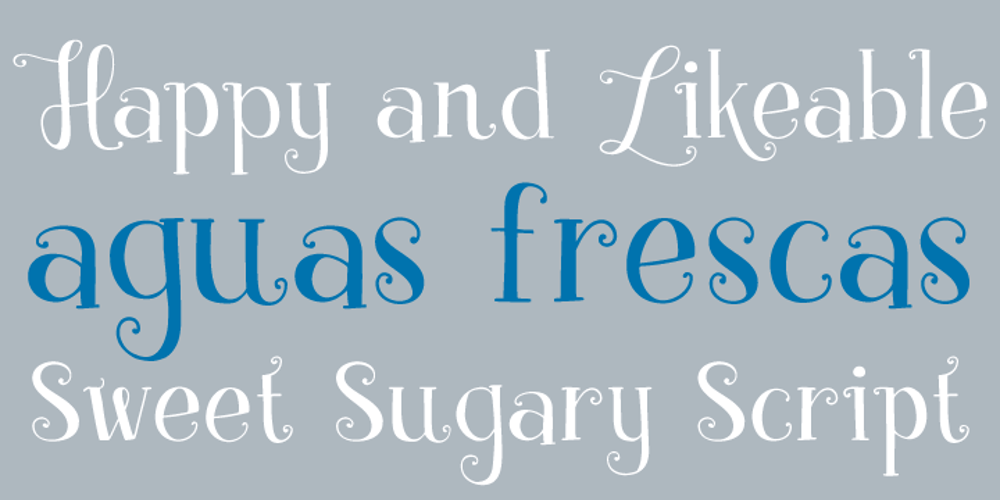
Aguas Frescas Font Family was designed by Chank Diesel, Carla Zetina-Yglesias and published by Chank. Aguas Frescas contains 2 styles and family package options. The Aguas Frescas font family is an outline, hand-drawn display typestyle that reflects script handwriting with a lively, whimsical twist. It is a flowery little font that dances across headlines with a happy and likable good-natured attitude and a lyrical lilt. For extra OpenType tastiness, there are alternate versions of all the lowercase glyphs and a Contextual Alternates feature to make the letters flow together more smoothly and look more natural and handmade. And if you want to kick it up one notch further, you can combine the outline font Horchata with its “aguas frescas” companion font Tamarindo which is the solid, filled-in version of this font. Duplicate your text in overlapping layers of the two fonts for an brighter multi-color effect.